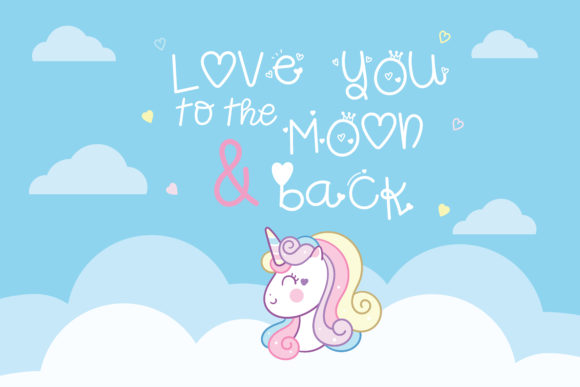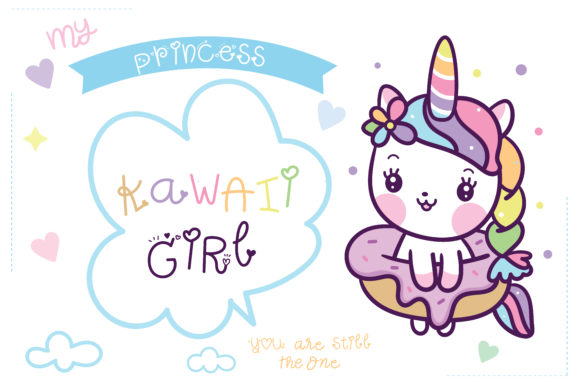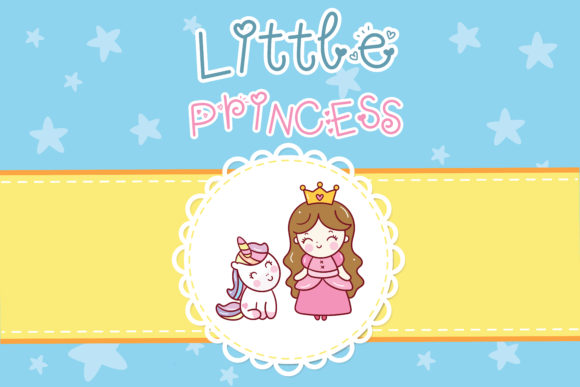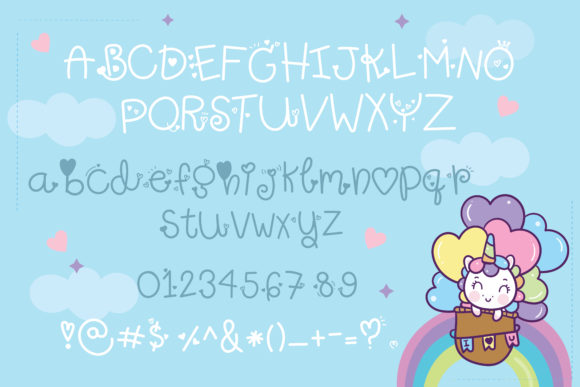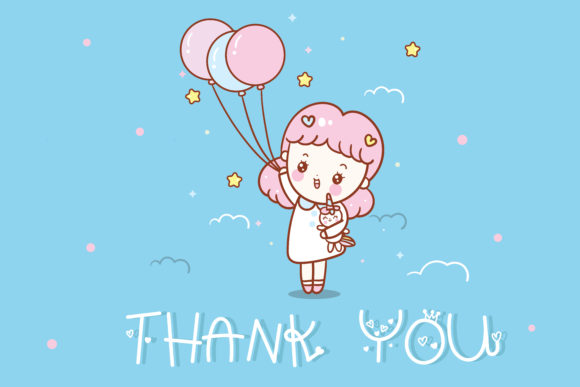
Unicorn Princess Font
About Unicorn Princess Font
Unicorn Princess is an incredibly cute and adorable script font. It celebrates all things unicorn and will work especially well in any cute kids or fairytale themed crafts.